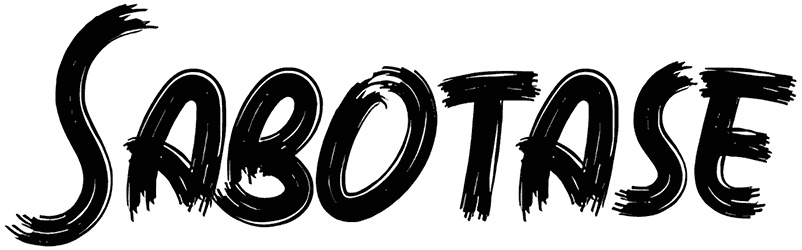
Sabotase Font
Beyond your imagination, you can expect Sabotase to bring an unbelievable quality to artwork such as posters, book covers, logos, business cards, and gift cards. Despite the fact that it doesn’t support lowercase letters, it offers two distinctive versions of uppercase letters, thus widening your selection range.
If in addition to conniving a sense of drama, dynamic, and softness, you need to add a personalized touch, this brush font would be ideal.